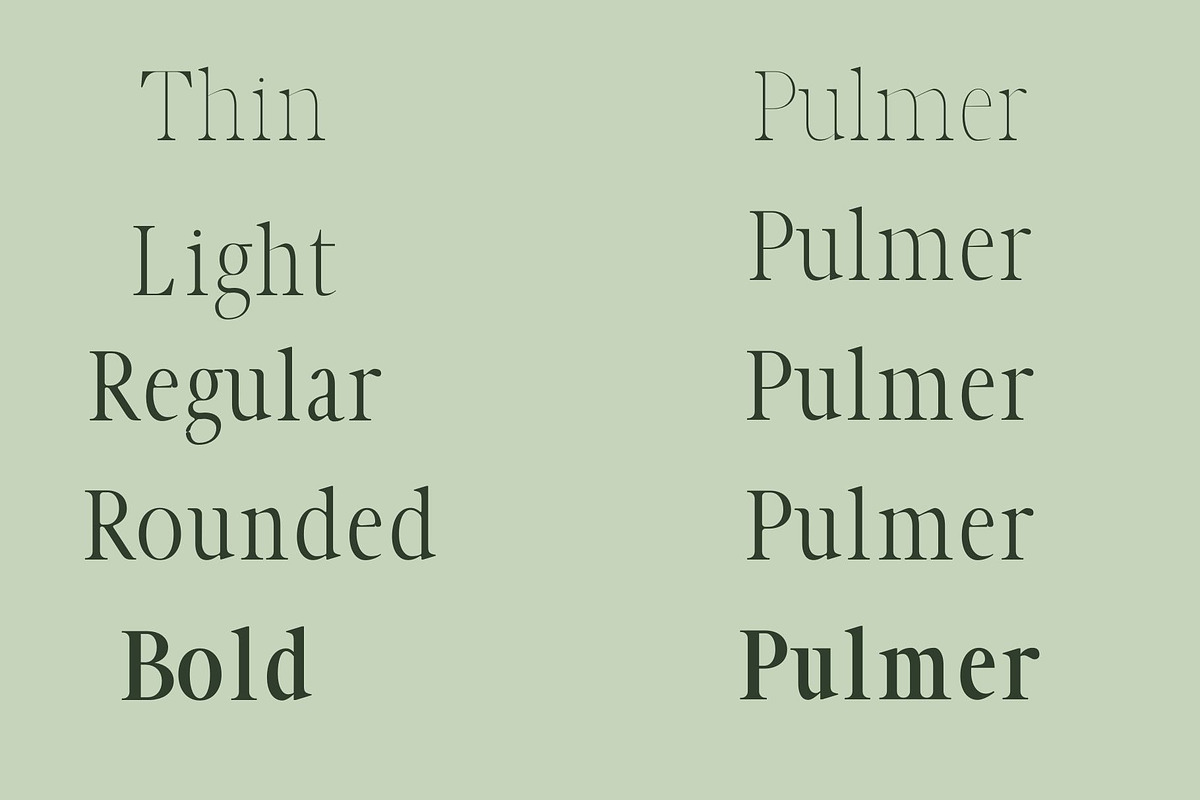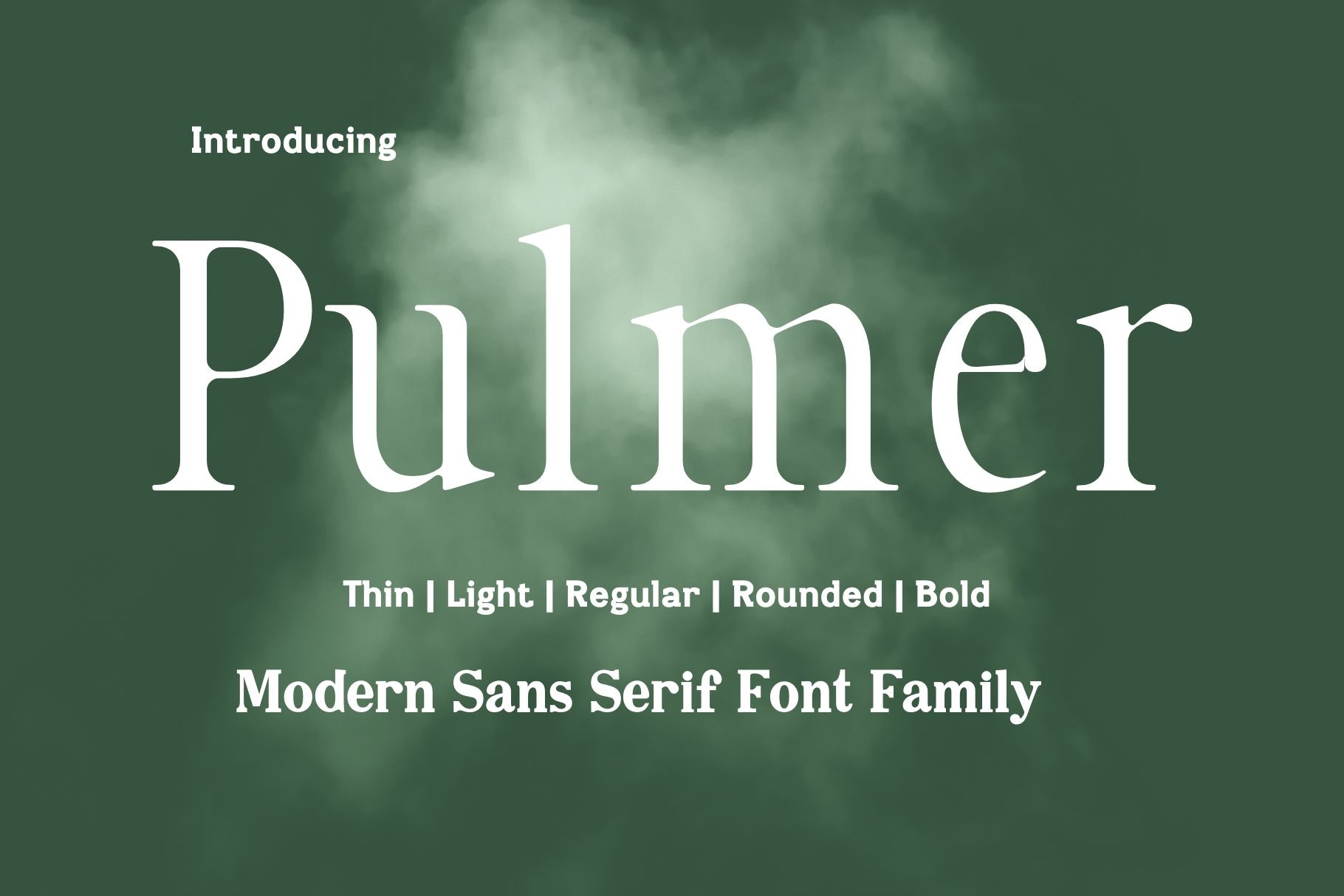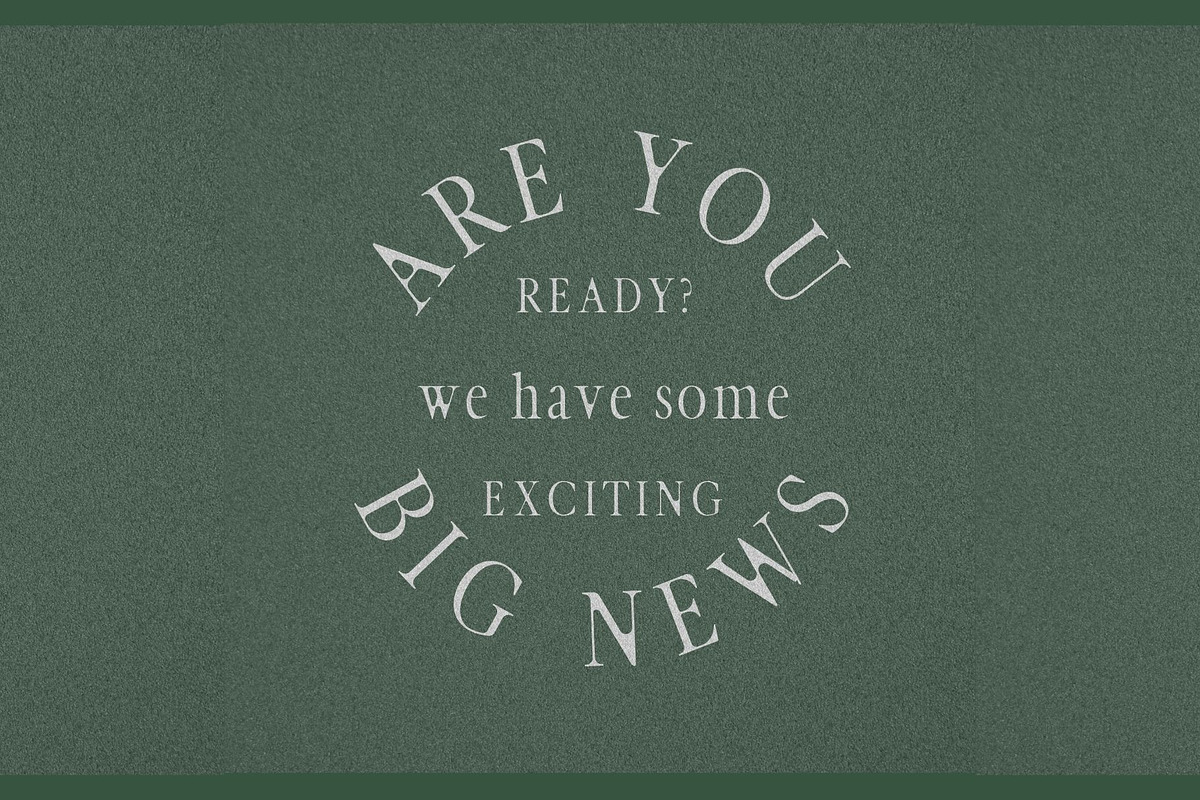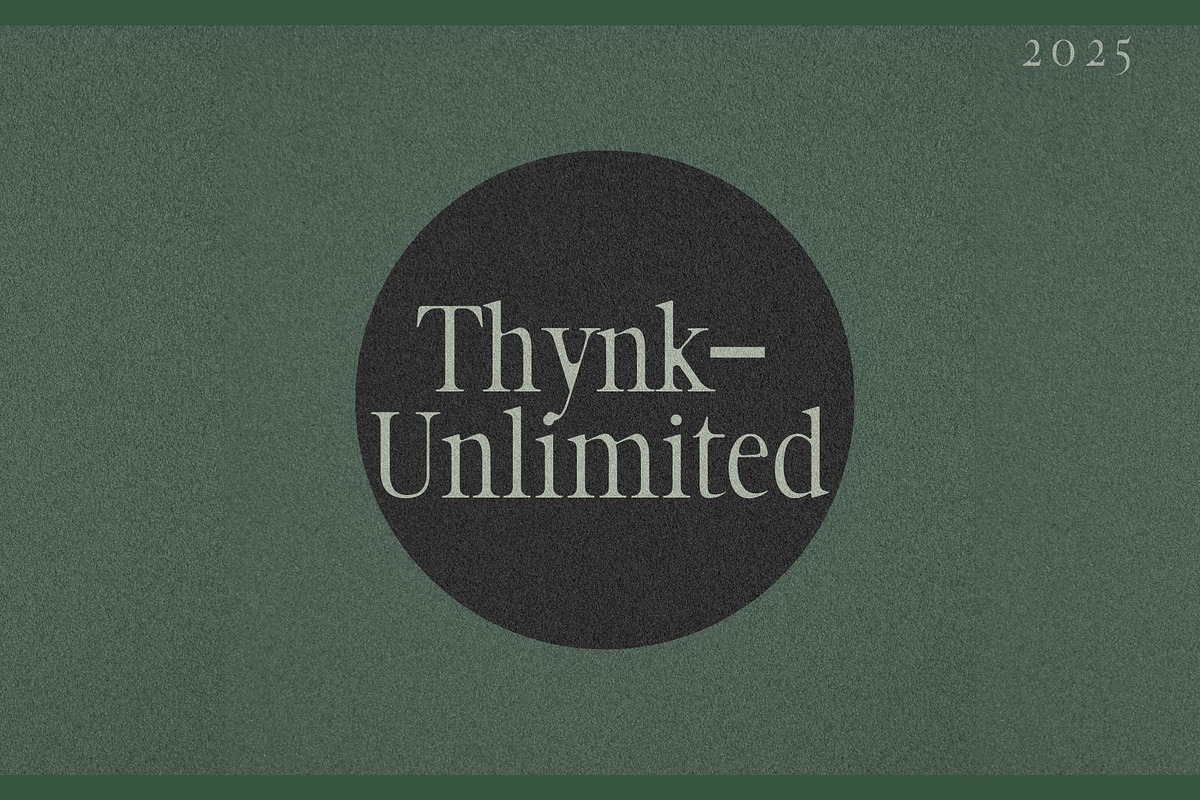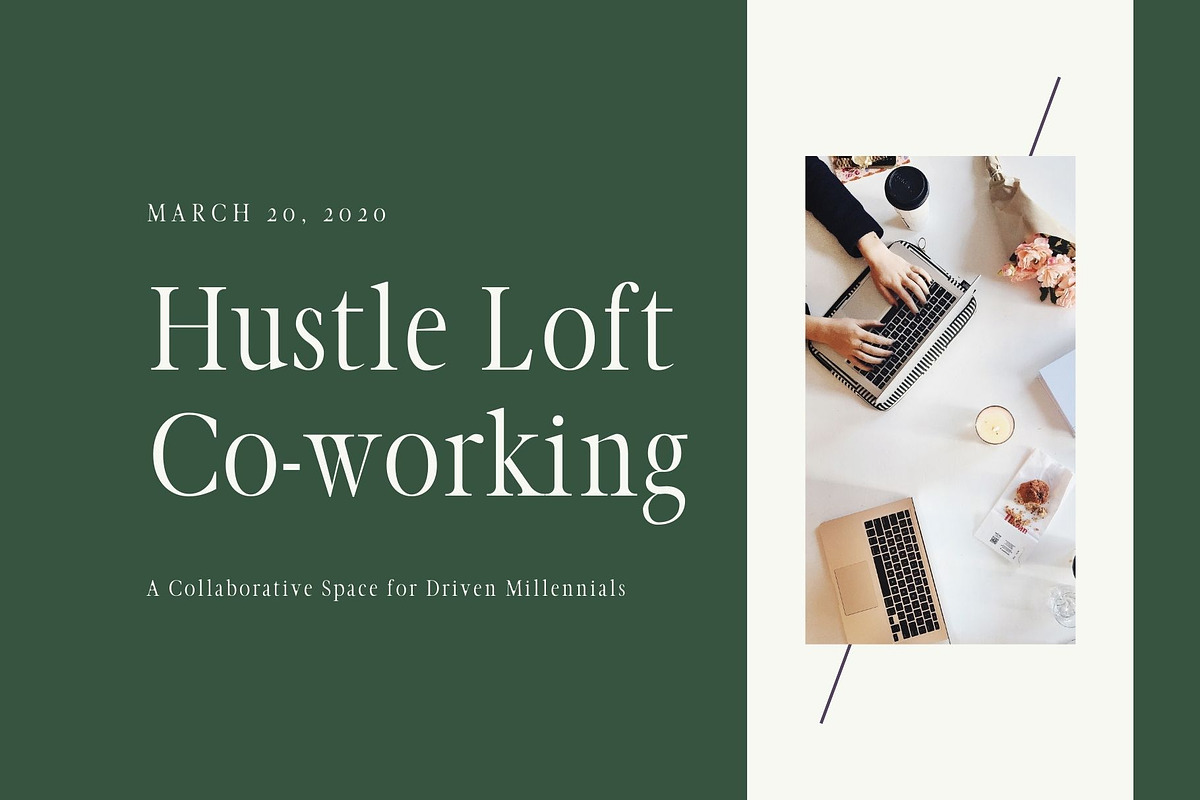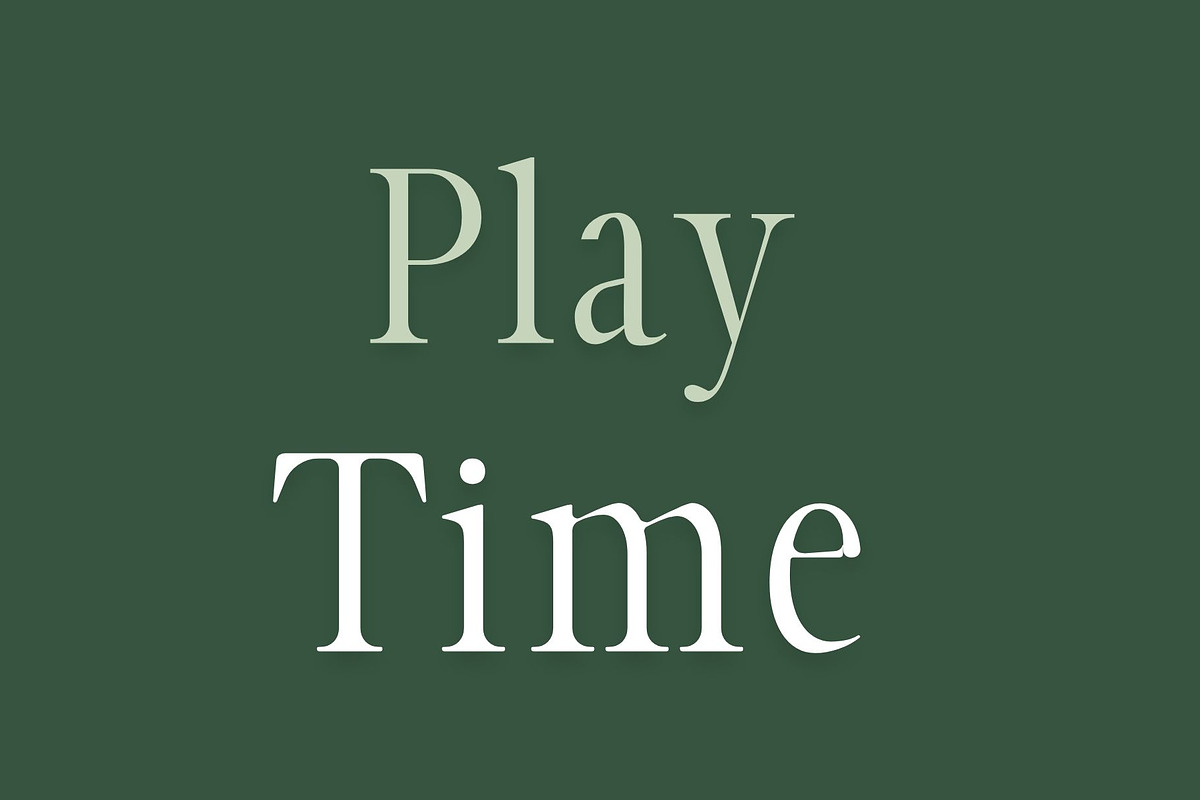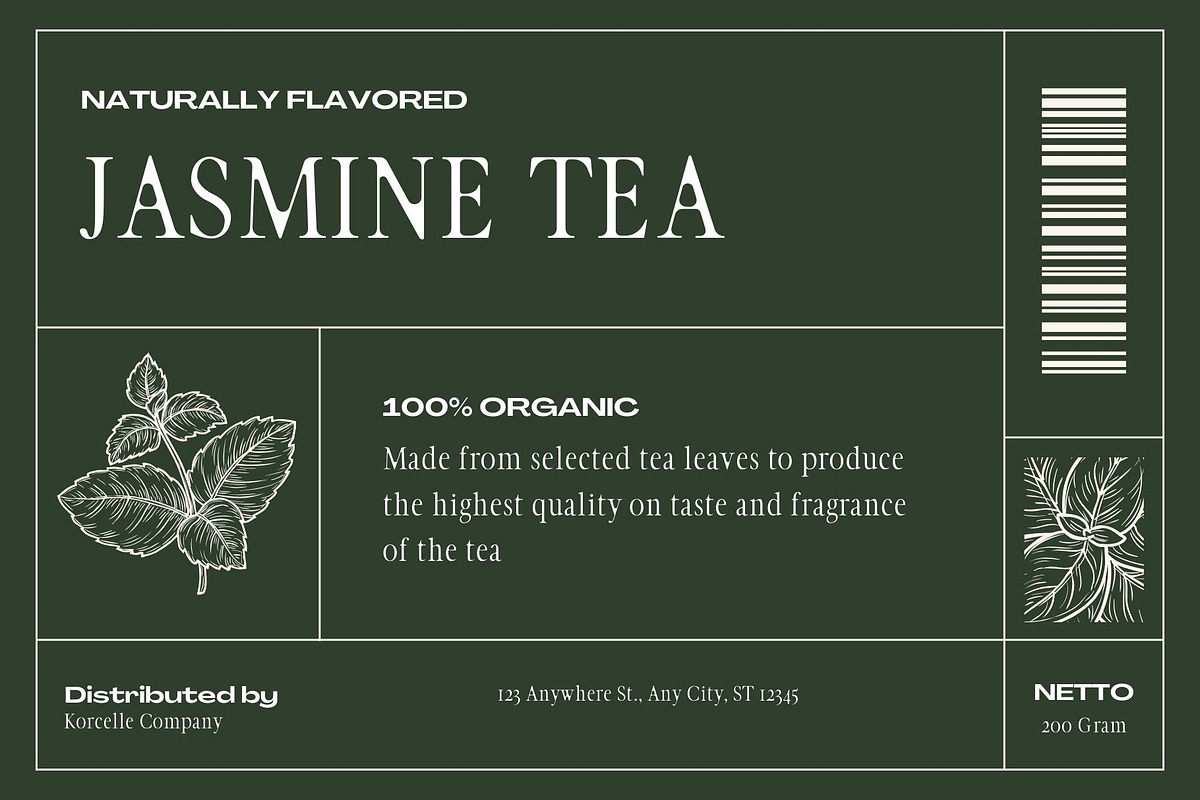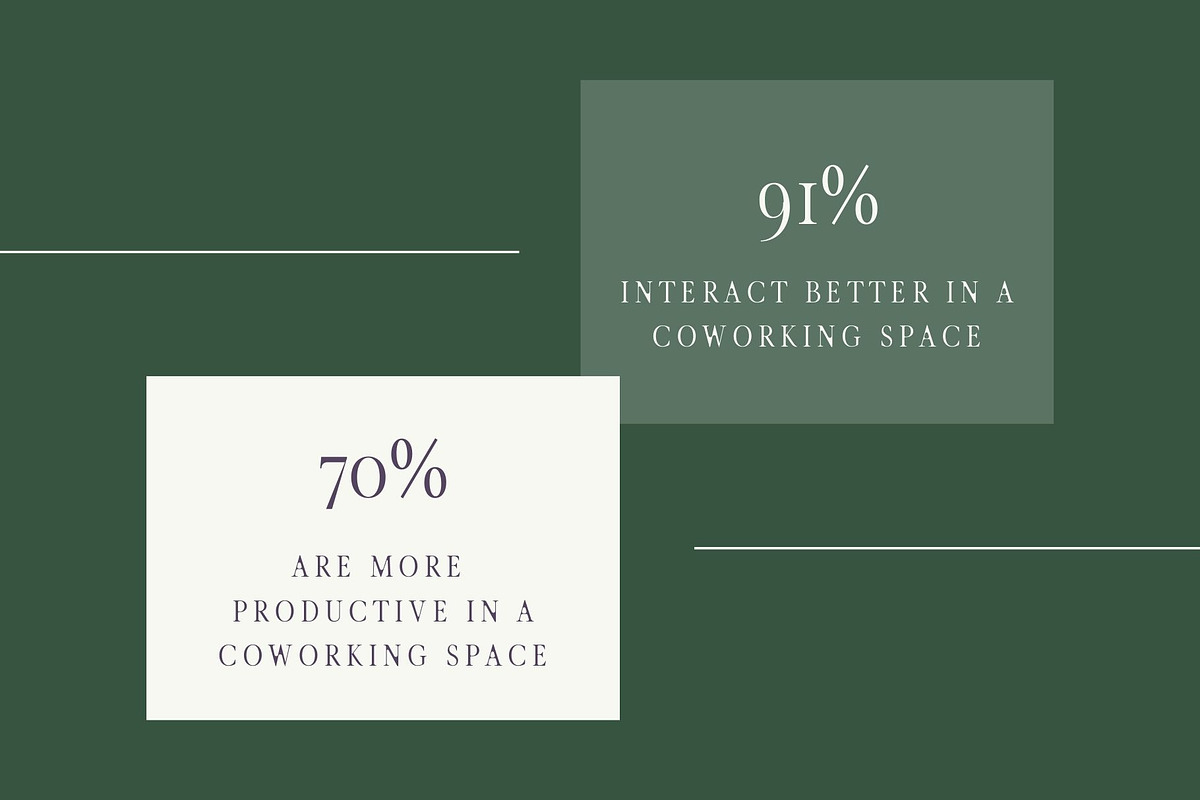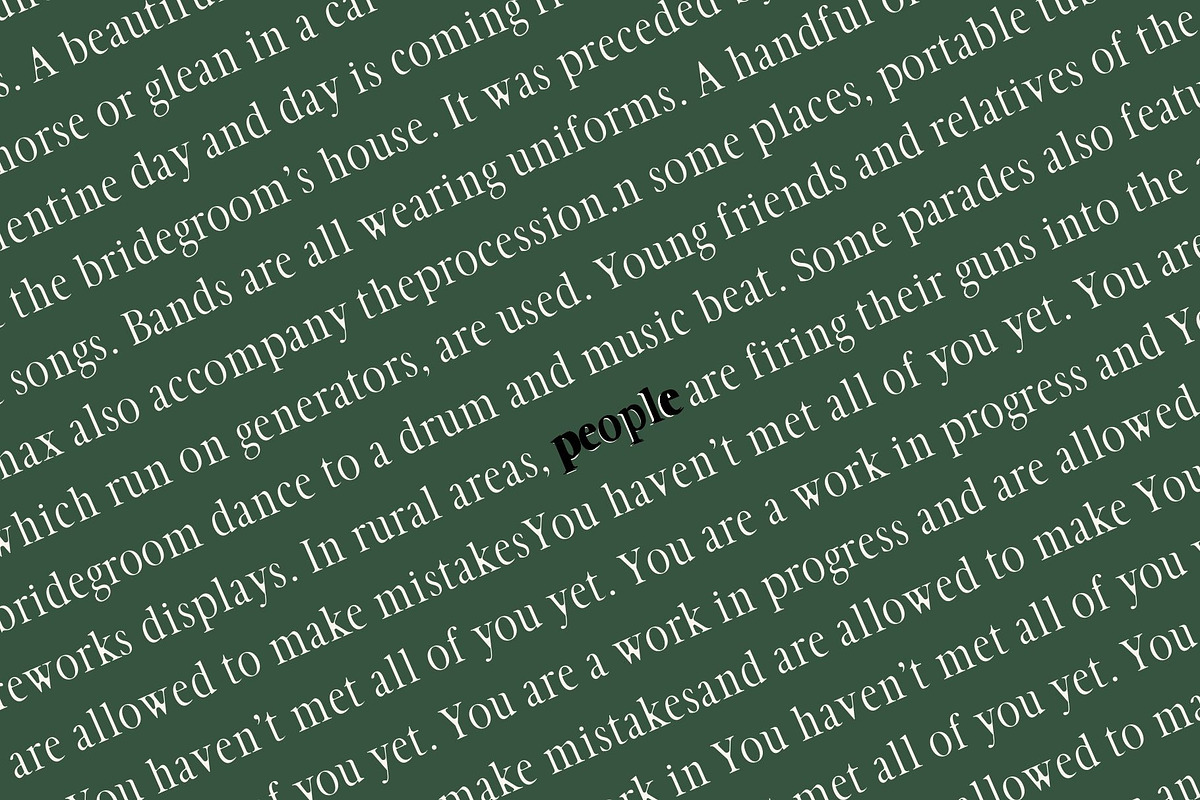
Pulmer - Sans Serif Font Family
Pulmer is a font that exudes the same sophistication and elegance as a flowing ribbon of silk, with fluid nuances that evoke a sense of effortless grace. Our serif font, with its classic beauty and refined details, is perfect for brands that value luxury and style. It will lend an air of timeless charm to your jewelry, cosmetics, perfumes, and wedding invitations, elevating their exclusivity and allure.